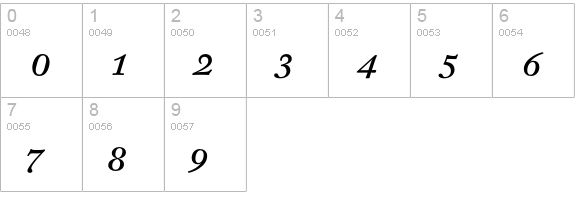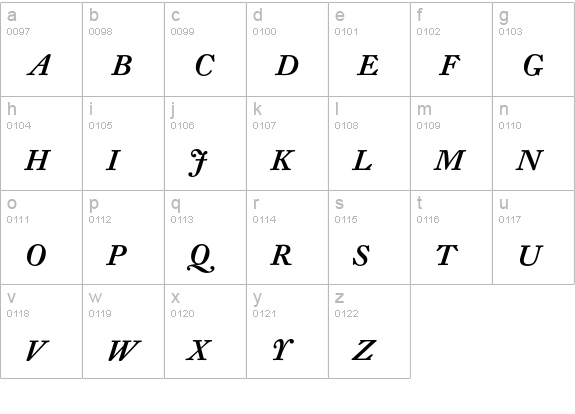
DTL Fleischmann T Italic Caps Font Details
DTL Fleischmann T Italic Caps is a distinctive, italic variant in the DTL typeface family \xE2\x80\x94 well suited to design and typography projects.
The DTL Fleischmann T Italic Caps font is a stylish and sophisticated typeface that exudes elegance and charm. Its slanted, italicized design adds a touch of flair to any project, making it perfect for use in branding, editorial design, and more. The delicate curves and sharp serifs of this font create a sense of refinement and sophistication, making it a versatile choice for a wide range of applications. What's even better is that the DTL Fleischmann T Italic Caps font is available for free download at FontsMarket.com. This means you can easily add this beautiful typeface to your font library without any cost, making it a valuable addition to your design toolkit. Don't miss out on the opportunity to enhance your projects with the timeless elegance of the DTL Fleischmann T Italic Caps font - download it for free today!